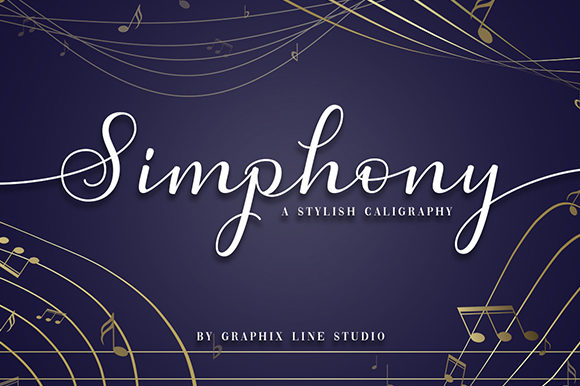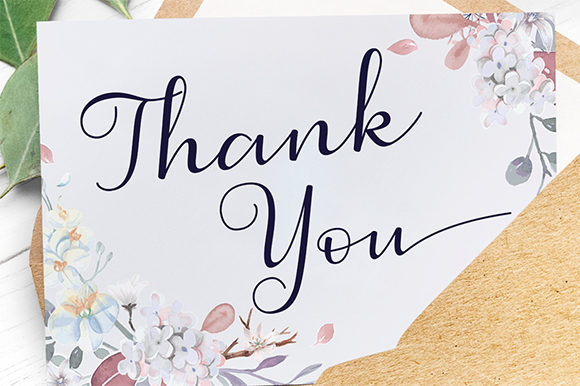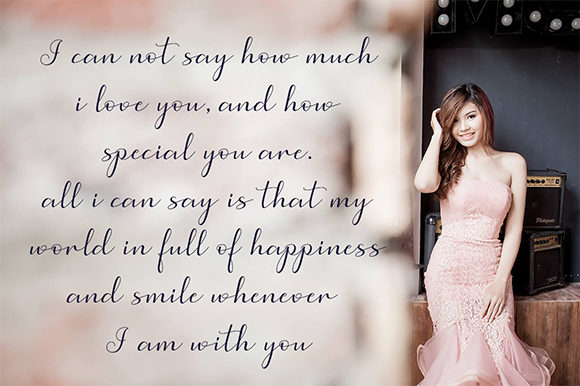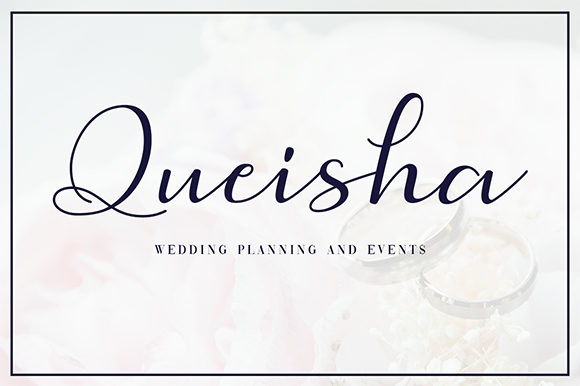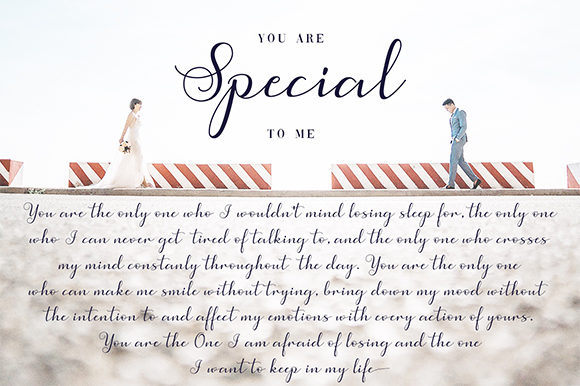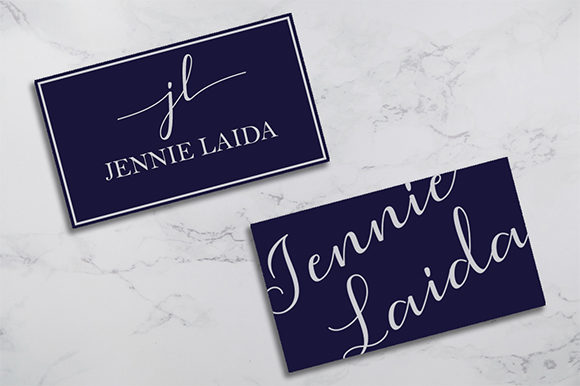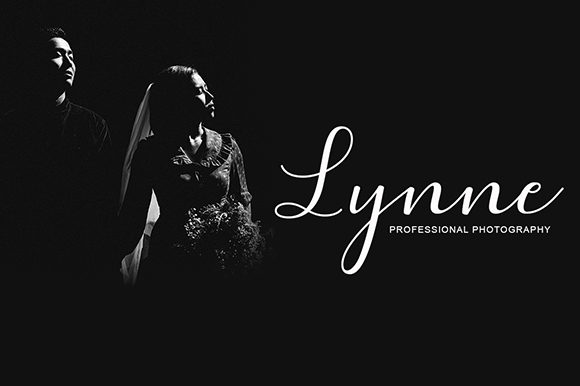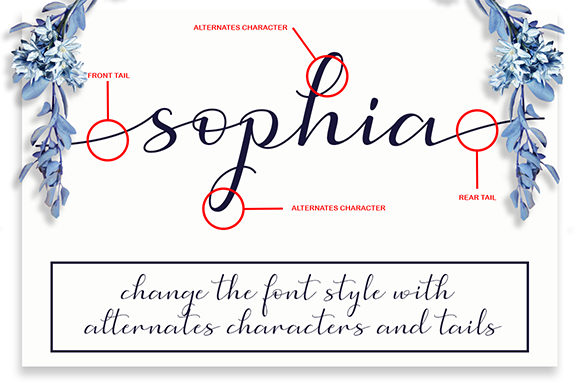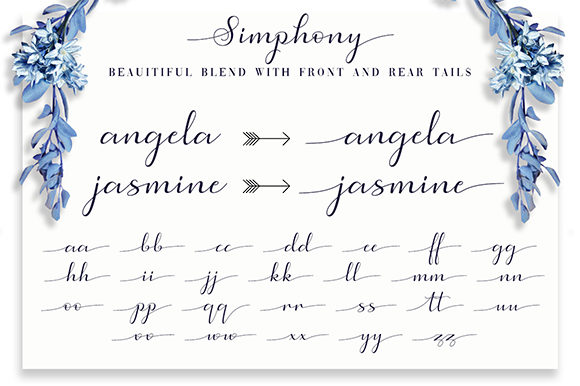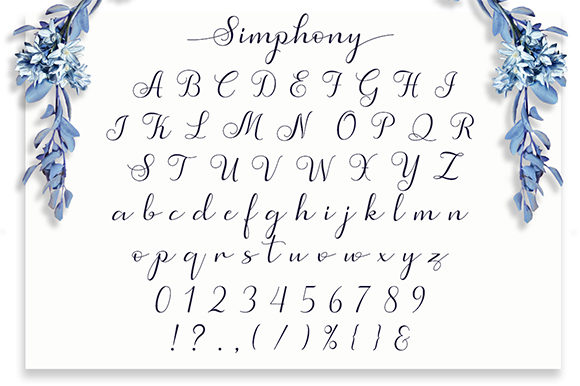
Simphony Font
About Simphony Font
Simphony is a perfectly delicate handwritten font with a magical feel. It will add a bold twist to any design project.